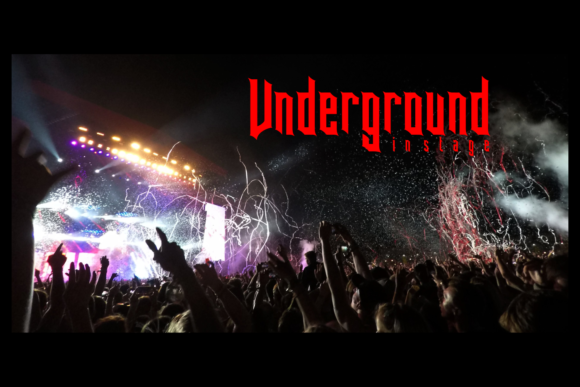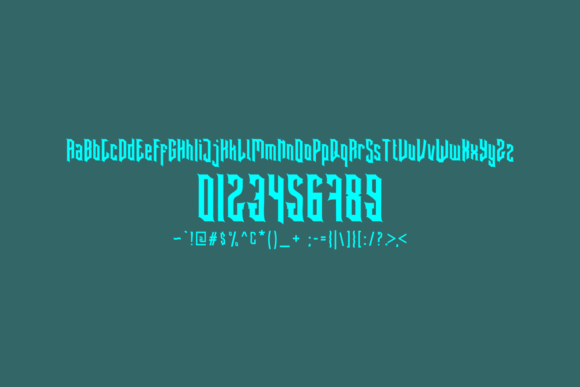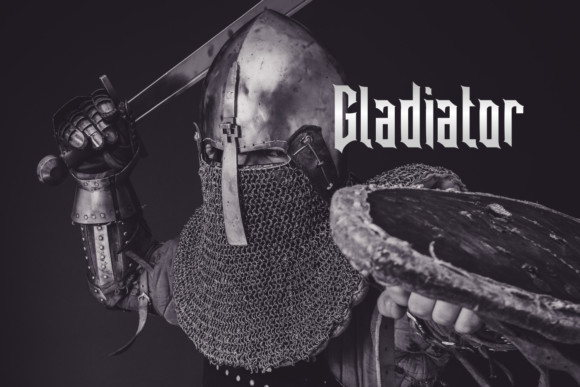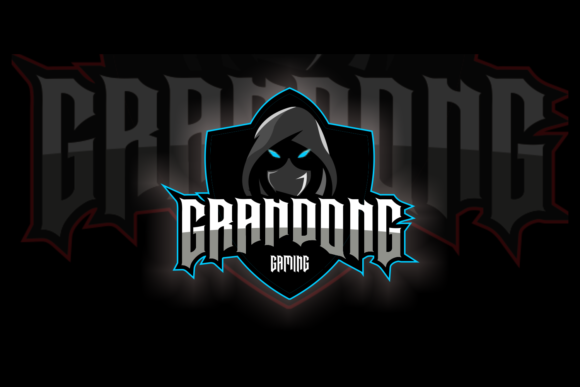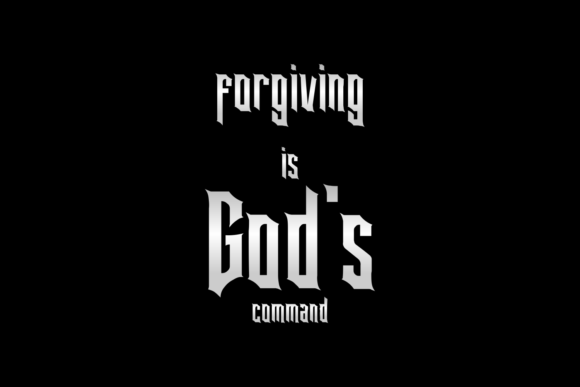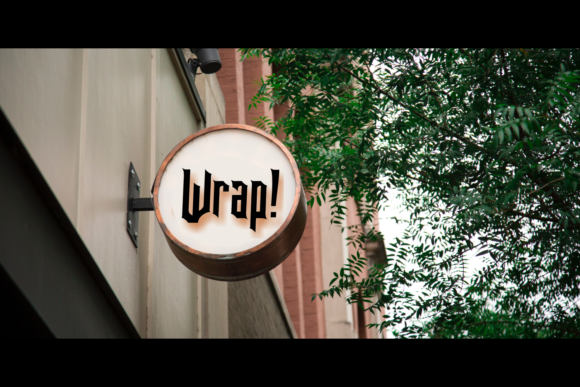
Discover the Elegance of Blarks Font: Elevate Your Creative Projects
Are you on the hunt for a font that exudes both charm and elegance? Look no further than Blarks Font. This stunning display font has captured the hearts of designers and crafters alike, and for good reason. Whether you’re looking to elevate your Instagram game or add a touch of sophistication to your DIY projects, Blarks Font is the perfect choice.
The Charm of Blarks Font
Blarks Font feels equally charming and elegant, making it an excellent addition to any creative project. Its unique blend of classic and modern elements gives it a distinctive look that’s sure to turn heads. With Blarks Font, you can add a touch of whimsy to your designs, making it perfect for projects that require a bit of personality.
One of the best things about Blarks Font is its versatility. This display font can be used for a wide range of creative projects, from social media graphics to calligraphy scripts. Whether you’re a seasoned designer or a crafty DIY enthusiast, Blarks Font is sure to inspire your next project.
Perfect for Instagram and Social Media
In today’s digital age, having a strong online presence is crucial. With Blarks Font, you can take your Instagram game to the next level. Use it to create eye-catching graphics, stylish quotes, and engaging captions that will make your followers take notice. The font’s elegant and charming design makes it perfect for:
• Instagram posts and stories
• Facebook graphics and ads
• Twitter headers and posts
• Pinterest graphics and quotes
Elevate Your DIY Projects
If you’re a crafty DIY enthusiast, you’ll love the creative possibilities that Blarks Font offers. Use it to add a touch of elegance to your:
• Handmade cards and invitations
• DIY home decor projects
• Calligraphy scripts and quotes
• Custom gifts and personalized items
Why Choose Blarks Font?
So, what sets Blarks Font apart from other fonts? Here are just a few reasons why designers and crafters love this display font:
• Unique design: Blarks Font has a distinctive look that’s both charming and elegant.
• Versatility: Use it for a wide range of creative projects, from social media graphics to calligraphy scripts.
• Ease of use: Blarks Font is easy to read and works well in both digital and print formats.
• High-quality: This display font is designed with high-quality craftsmanship, ensuring that it looks great in any project.
Get Creative with Blarks Font
In conclusion, Blarks Font is a must-have for any designer or crafter looking to add a touch of elegance and charm to their creative projects. With its unique design, versatility, and ease of use, this display font is perfect for a wide range of applications. Whether you’re looking to elevate your Instagram game or create stunning DIY projects, Blarks Font is the perfect choice. So go ahead, get creative, and see what amazing things you can create with Blarks Font!